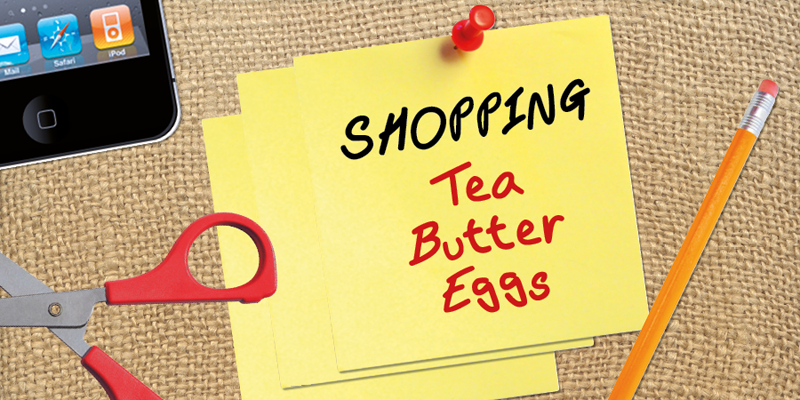
Preview and download BM Hand Font. Created by Benjamin Melville in Script Handwritten styles with Donationware license.
Font name: | BM Hand |
Author: | Benjamin Melville |
Note by Benjamin Melville | |
Based on my own handwriting this 'casual' style comes from quick note taking.For when you want a casual, quick doddle looking note/hand written font. If for commercial please see use my paypal email address and send £15 or follow this link; https://www.creativefabrica.com/ref/186/ paypal graphicsbam@hotmail.com A quick email or link to where it is being used would be very nice, I’d love to see what you do with it. |